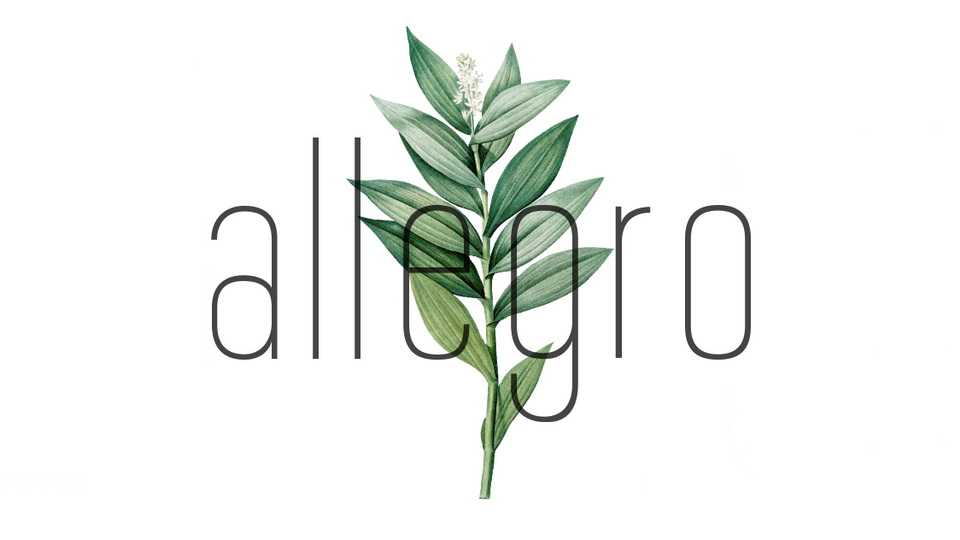
Download Allegro font, a sans serif typeface based on the cheerful elegance of the Allegro rhythm. Its clean and minimal look perfectly fits for modern graphic design.
Designer: Clara Carvalho